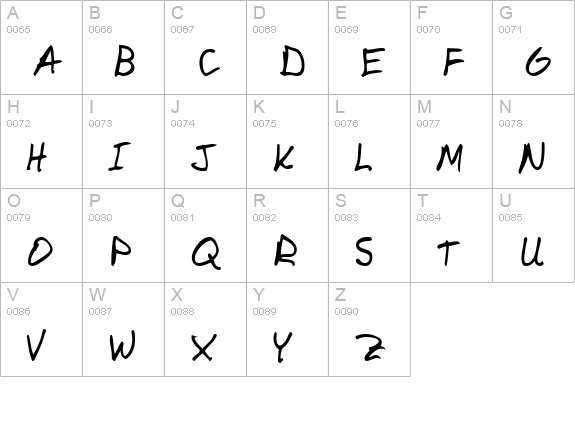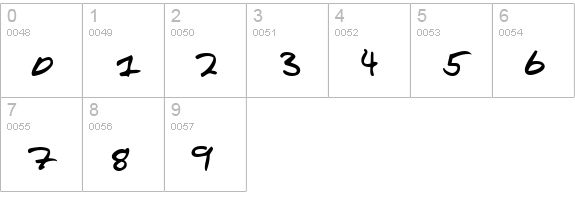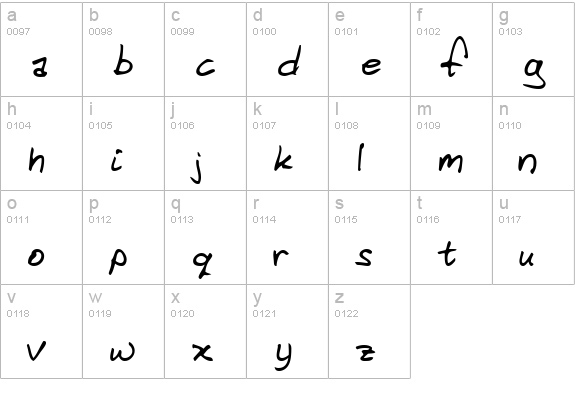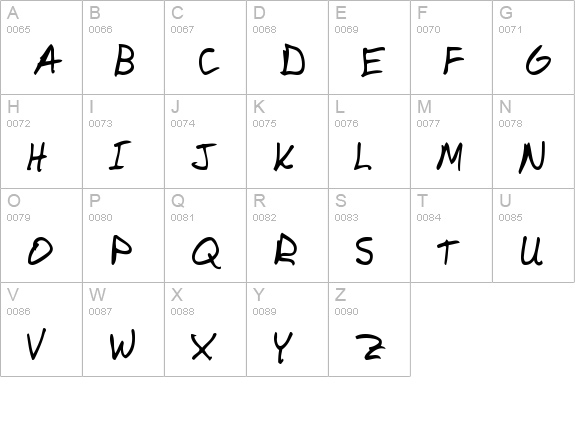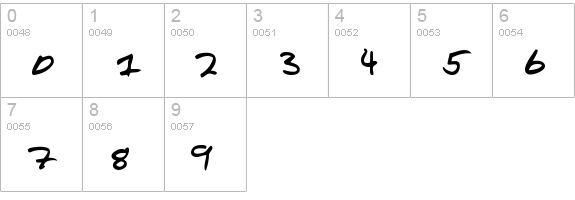
Domestic Manners Font Details
Domestic Manners font exudes elegance and sophistication with its timeless design and graceful curves. This versatile typeface is perfect for adding a touch of refinement to any project, whether it be invitations, branding, or editorial design. Its classic yet contemporary style makes it a must-have for any designer looking to elevate their work with a touch of class. What sets Domestic Manners font apart is not only its beauty but also its accessibility. This font is freely available to download at FontsMarket.com, making it easy for designers of all skill levels to incorporate this stunning typeface into their projects. With Domestic Manners font, you can effortlessly create designs that are both stylish and professional, without breaking the bank. Elevate your work with this exceptional font today and see the difference it can make in your designs.